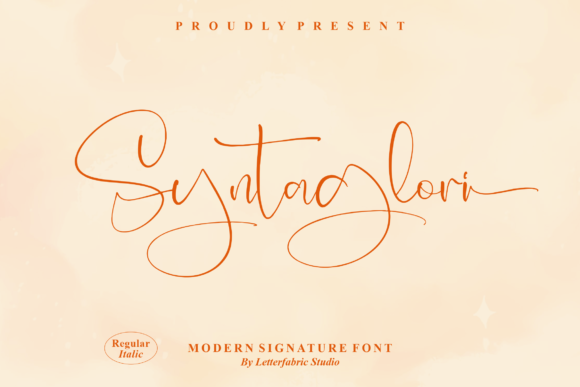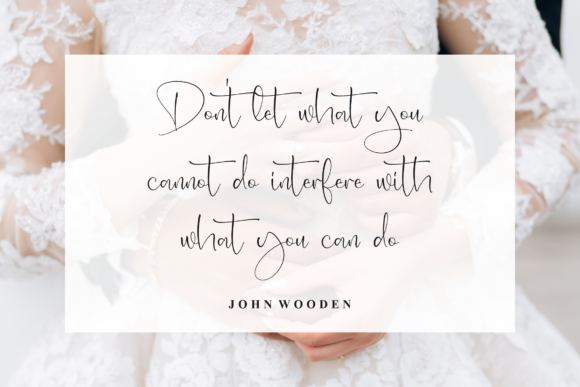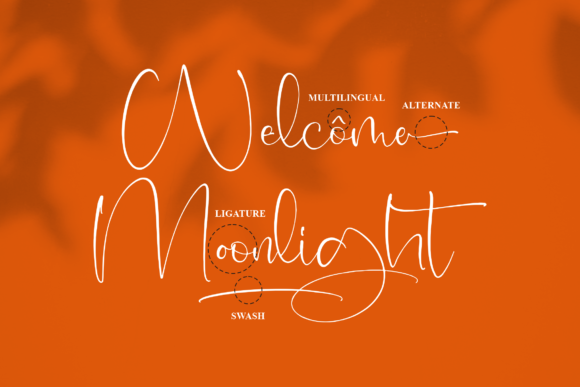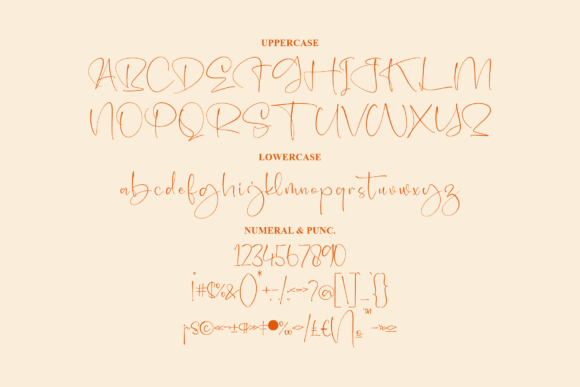
About Syntaglori Font
“Syntaglori” isn’t just a font; it’s a stylish and slim script font that exudes elegance and allure. Crafted with precision, this font is a manifestation of style and sophistication. Its versatility shines through, making it a suitable choice for a plethora of projects. Whether it’s logos, branding materials, labels, photography, watermarks, special events, or any other lovely endeavor requiring a touch of beautiful script, “Syntaglori” stands ready to enhance your creative vision.
The font’s appeal lies in its seamless blend of style and slim elegance. Each character is meticulously designed to contribute to an aesthetic that not only captures attention but also resonates with a sense of refinement.
As “Syntaglori” becomes a part of your creative journey, you’ll witness its transformative capabilities. By incorporating this font into your projects, you’ll observe how it elevates and amplifies your ideas, infusing them with a touch of sophistication that sets them apart.
In essence, “Syntaglori” transcends being a mere font. It’s an embodiment of style and elegance, meticulously designed to enrich visuals with a script taste that exudes beauty and allure. With its PUA encoding, which allows easy access to glyphs and swashes, this font emerges as an invaluable tool for designers striving to create visually captivating, sophisticated, and impactful visuals that leave a lasting impression. With “Syntaglori,” your designs don’t just communicate; they captivate and mesmerize, leaving an indelible mark on those who encounter them.